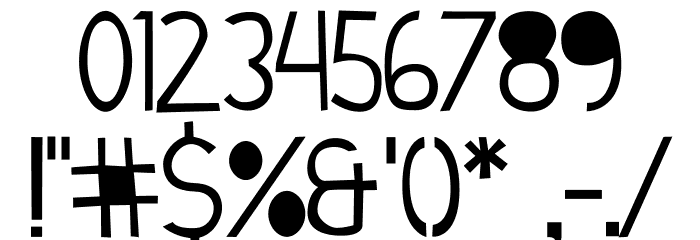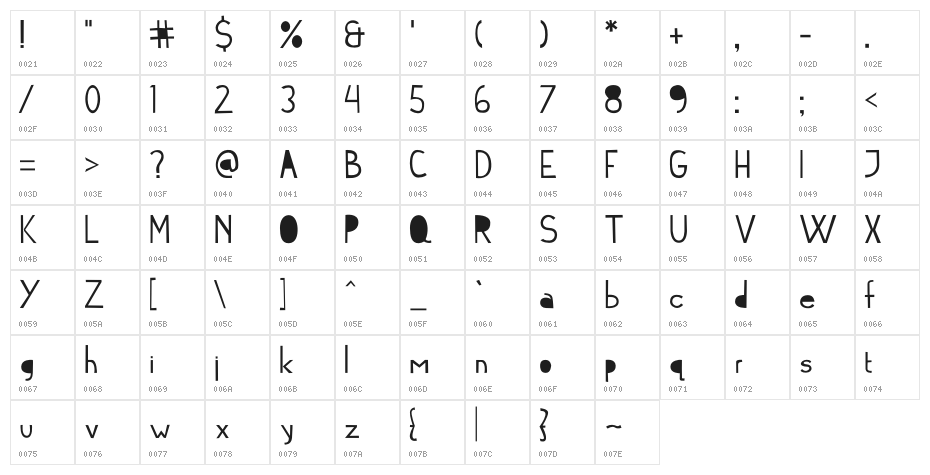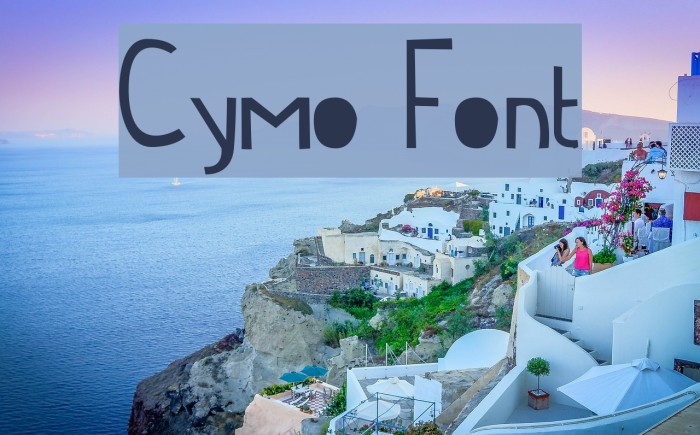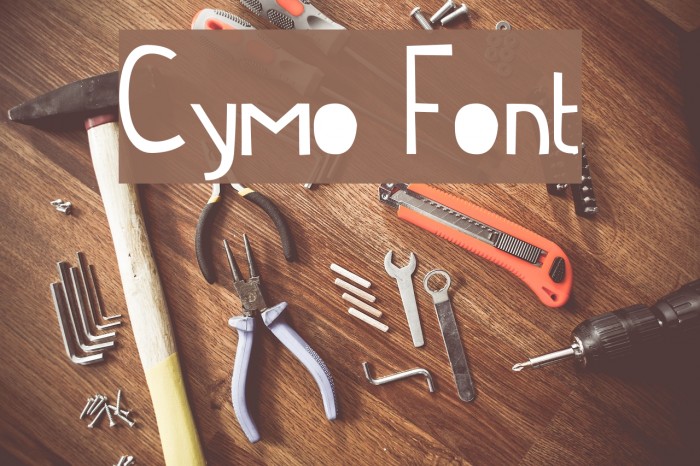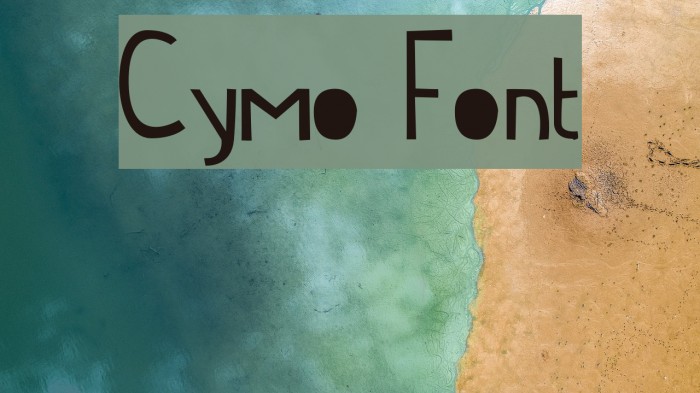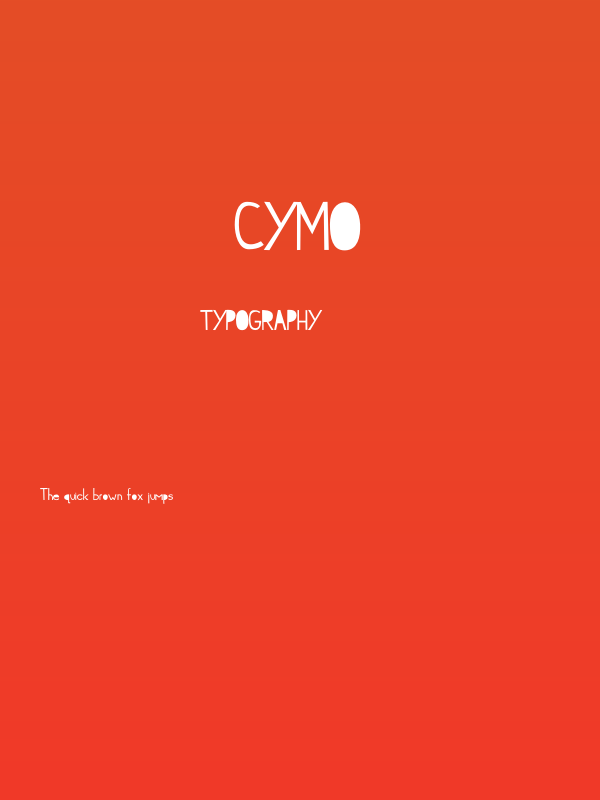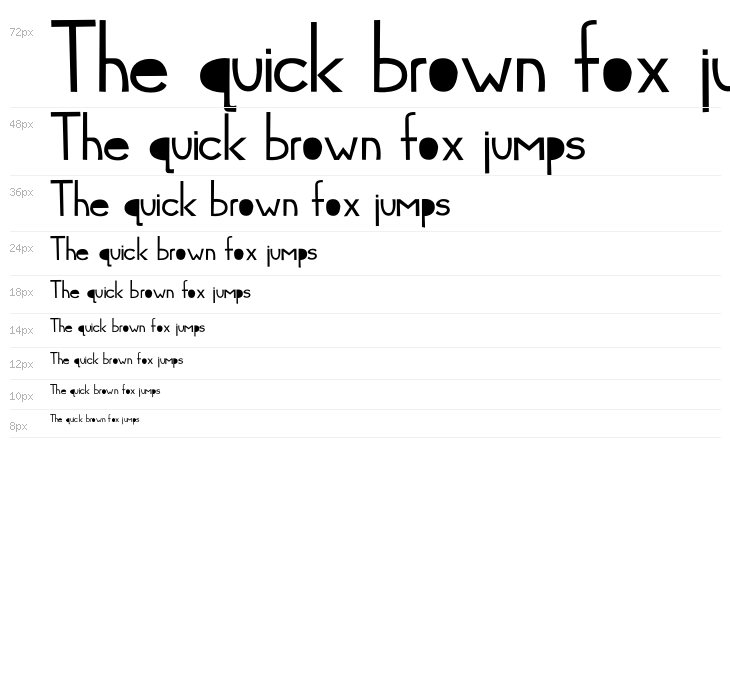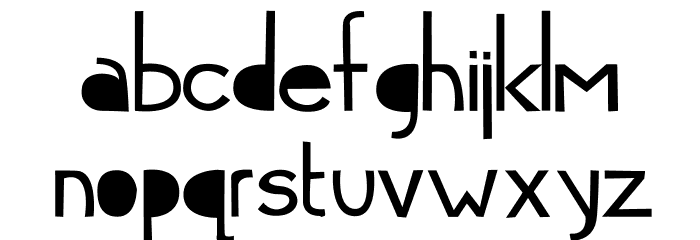
Cymo Font
Cymo Description
This font features a unique and playful design with a mix of geometric and organic shapes. The uppercase letters are bold and striking, with some characters like 'Q' and 'R' having distinctive, exaggerated curves. The lowercase letters maintain a consistent style, with rounded edges and a slightly whimsical appearance. Numbers are bold and clear, making them easily readable. Special characters are creatively styled, adding to the font's overall charm. This font's artistic flair makes it suitable for creative projects.
| Proposed Projects | Ideal for children's books, playful branding, posters, and creative invitations. |